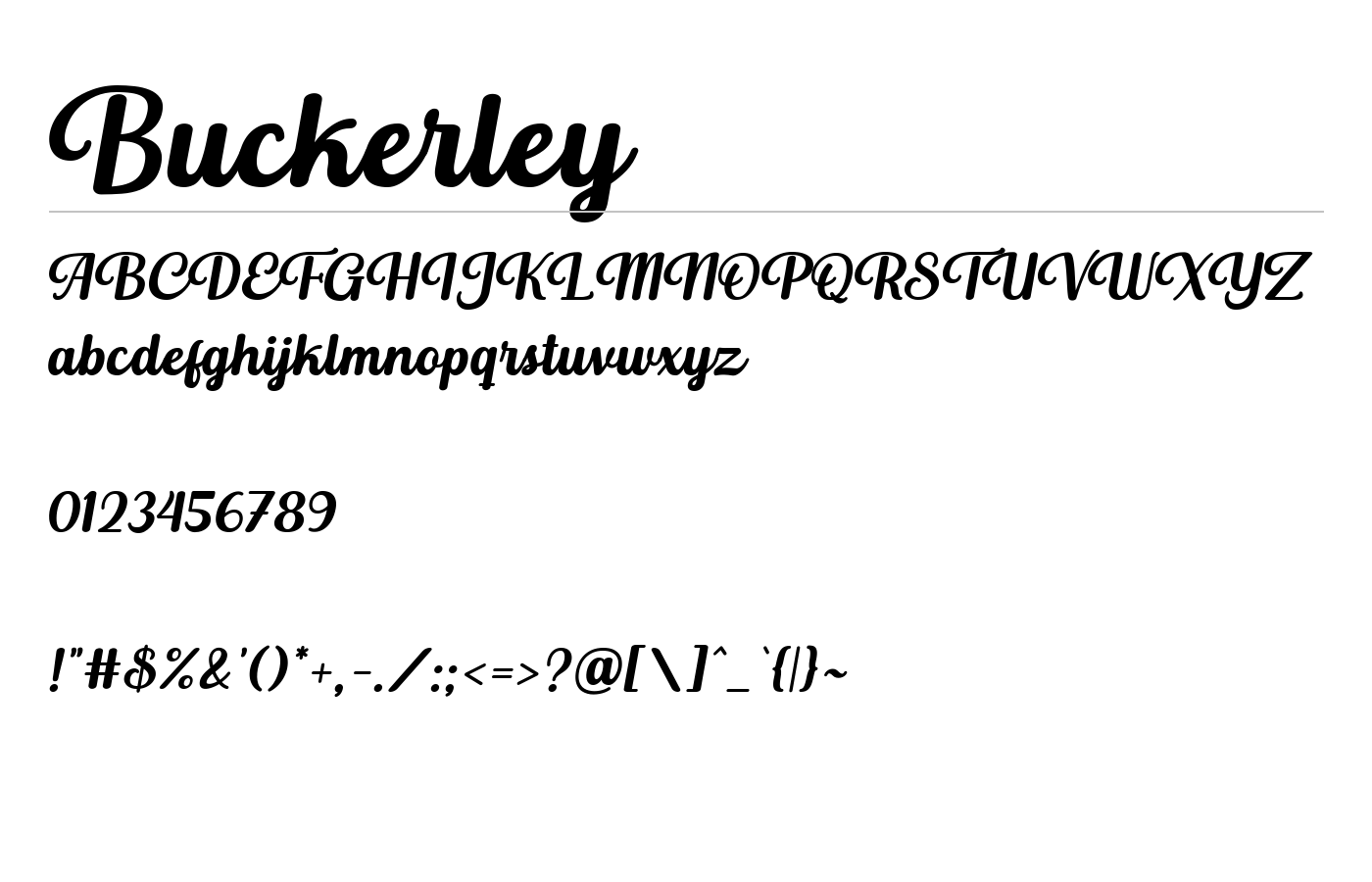
Buckerley is a bold, script-style font with smooth, flowing strokes and a playful yet elegant character. Its medium contrast and rounded forms give it a warm, friendly feel, making it ideal for branding, packaging, and headlines that require a personal and inviting touch. This font works well where a stylish, handcrafted look is desired without sacrificing readability.
Buckerley Font
About Buckerley Font
| Font family | Buckerley Font |
| Designer | Hendra Pratama |